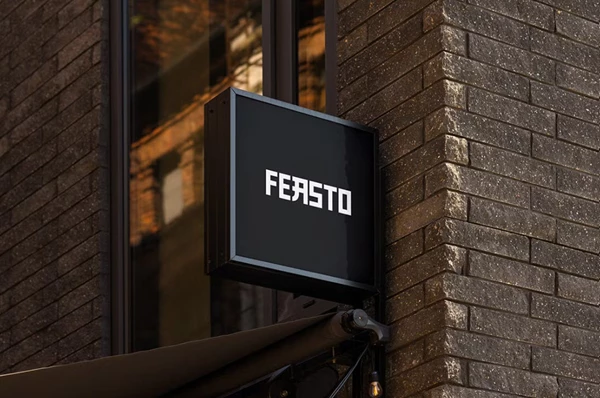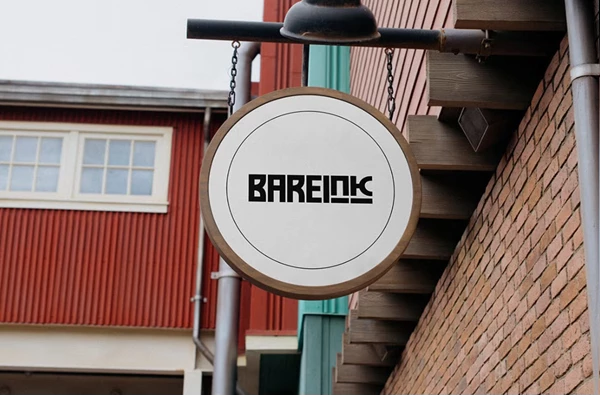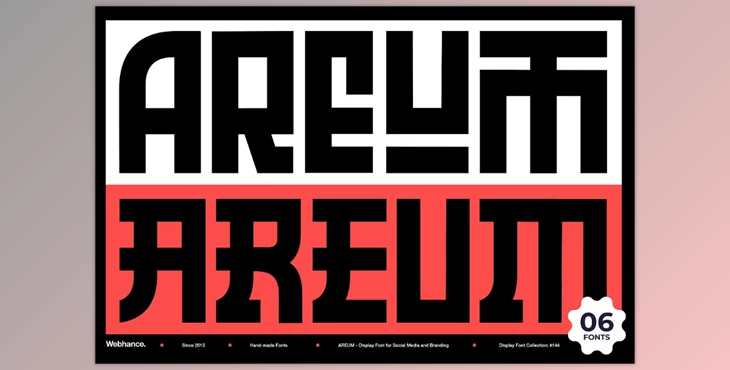
AREUM Display Font:
The AREUM Display Font is a typeface of striking elegance. It embodies collected rigid geometric straight lines of Korean Hangul while balancing the architecture of clean spacing. Something beautiful in Korea is Areum, which describes well the rich culture with the modern blend the font offers. This typeface is highly crafted and is the best option for projects needing to defend visual identity, such as branding, poster headlines, album covers, editorial spreads and layouts. AREUM is a harsh yet subtle typeface made by traditional Korean aesthetics, embraced by a grid-based structure.
The font family comprises three main styles—Regular, Edge, and Horizon—and their italic versions, totalling six fonts. This wide range provides ample opportunity for compositional undertakings. From precision and understatement to aggressiveness and hyperbole, from muted configurational endeavours to maxed-out compositional incredibility. With support for over 100 languages, AREUM aims to express beauty and elegance across cultures.
- It Offers Over 200 Glyphs
- Provides Opentype Features Like Kern, Mark, Mkmk, And Others
- Includes Uppercase Letters, Punctuation, Numbers
"AREUM Display Font" Samples: